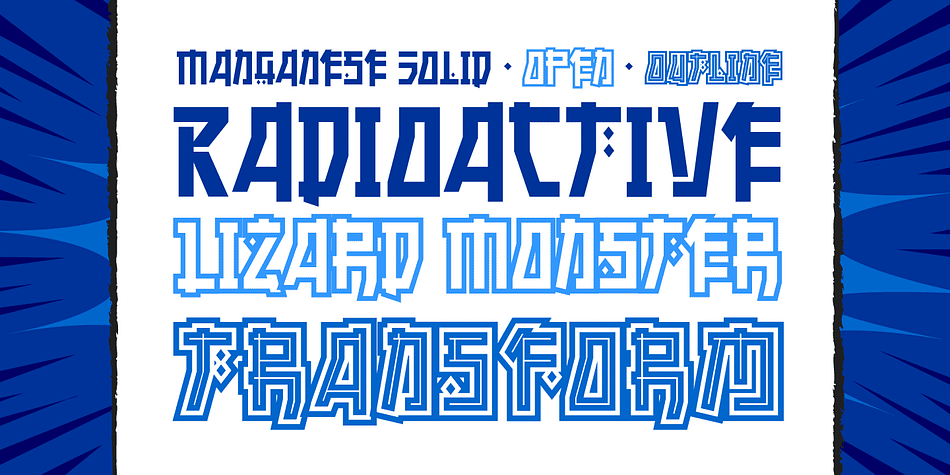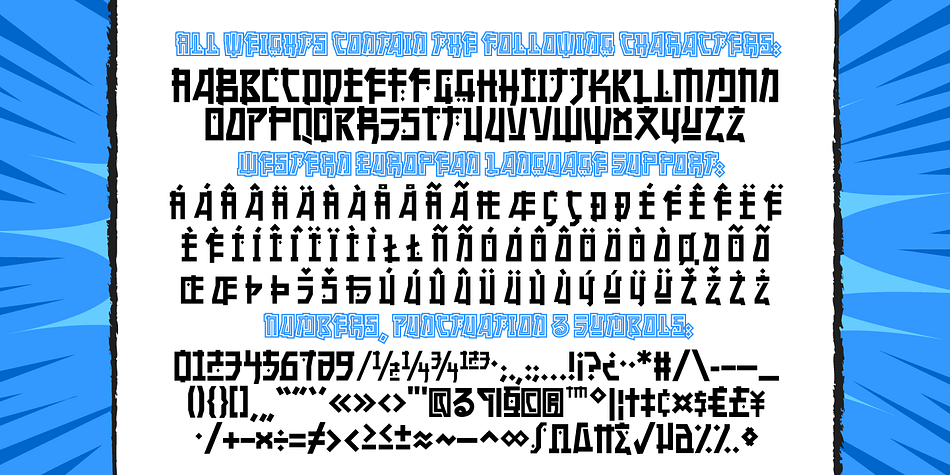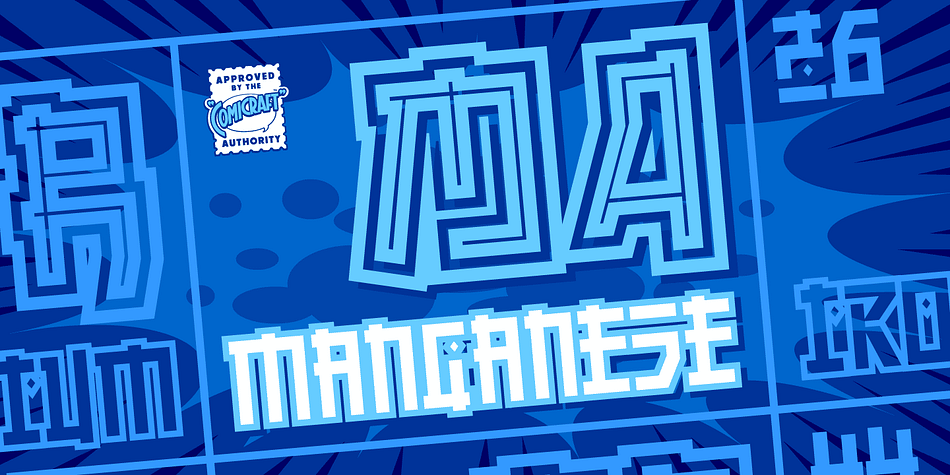
Designed by John Roshell, Manganese is a display, foreign and novelty font family. This typeface has three styles and was published by Comicraft.
The entire Headquarters Building of Active Image Comicraft has been ripped from the ground by a giant lizard monster which has unexpectedly risen from the sea! It has the power of bodily transformation! By merely willing it, it can transform its atomic structure into any form and shape. It is completely hostile. It regards our entire island nation as its enemy. Run! RUN! Run from the Giant Monster!